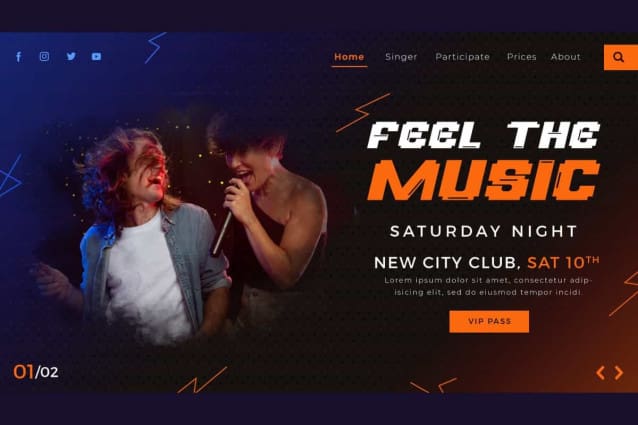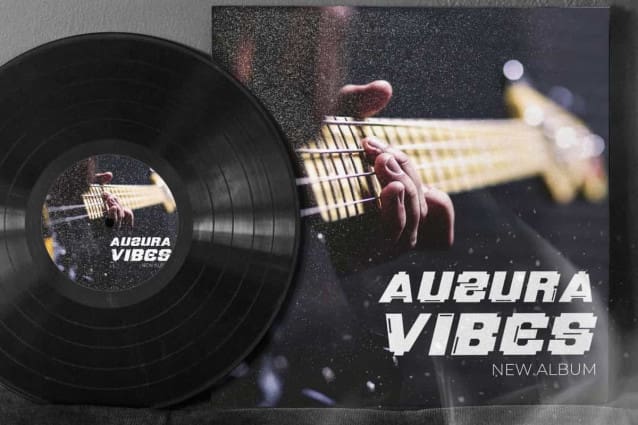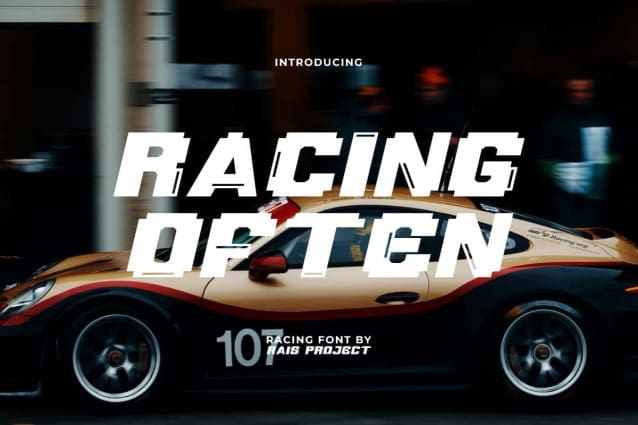
Racing Often Font
Racing Often Font is a retro pixel art style racing font, created by RaisProject. This font carries a pixel concept like in a game that is fun to play. It will be good for any designs, such as advertisement, brand image, custom design, invitation, label, marketing material, poster, product packaging, quotes, signage, website page, and more!
Racing Often Font includes a full set of ALL CAPS for Uppercase and Lowercase Letters, Numerals, and large range of Punctuation. This awesome font with a racing vibe will be suitable for various industries, such as automotive, cafes, event or festival, fashion, game, printing, publishing, photography, sports, etc.